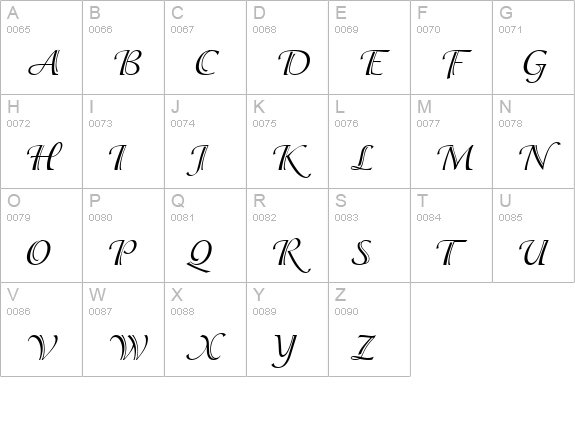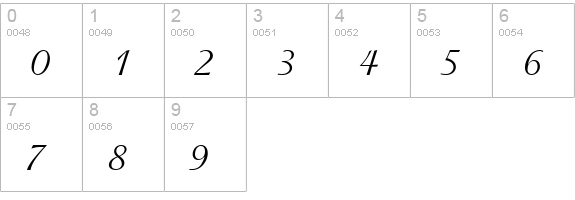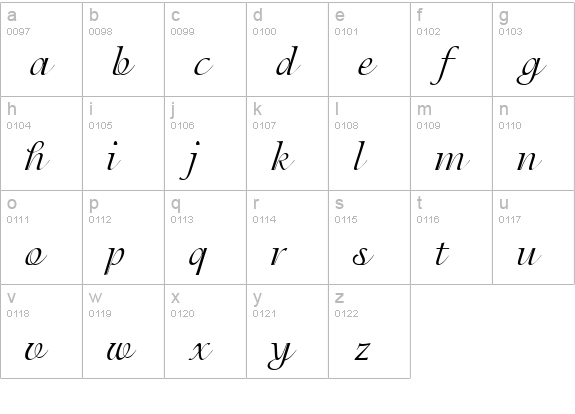
Adorable Font Details
The Adorable font is the epitome of sweetness and charm, exuding a playful and endearing vibe that will make any text stand out. Its whimsical and loopy letter forms are sure to captivate and delight your audience. This delightful font is not only visually appealing but also incredibly versatile, perfect for a wide range of projects including invitations, greeting cards, posters, and more. And the best part? Adorable font is available for free download at FontsMarket.com! You can easily add this adorable typeface to your collection without breaking the bank. So why wait? Give your designs a touch of cuteness with the Adorable font today!